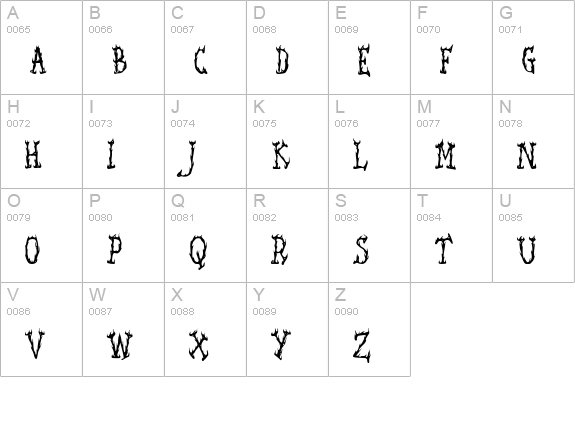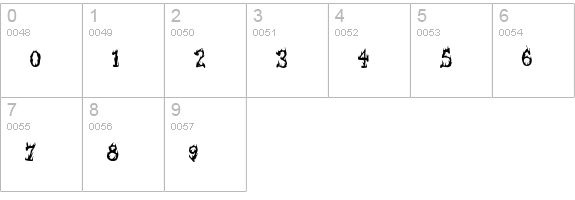
Seaweed Fire AOE Font Details
Introducing Seaweed Fire AOE font, a captivating typeface that will set your designs ablaze with its fiery charm. This unique font is perfect for adding a touch of intensity and excitement to your projects. Its bold and dynamic strokes give each letter a sense of movement, as if they were dancing in flames. Seaweed Fire AOE font is not only visually striking, but also highly versatile. It can be used for various design purposes, from eye-catching headlines to attention-grabbing logos. Its distinct characters are carefully crafted to bring a sense of energy and impact to any typographic composition. But what sets Seaweed Fire AOE font apart from the rest is that it is freely available to download at FontsMarket.com. Yes, you read that right – this captivating font can be yours without spending a dime. Whether you're a professional designer or simply someone who appreciates the beauty of typography, Seaweed Fire AOE font offers you the opportunity to unleash your creativity without any cost. So why wait? Embrace the power of Seaweed Fire AOE font and elevate your designs to new heights. Download it for free at FontsMarket.com and let the flames of creativity ignite your imagination.